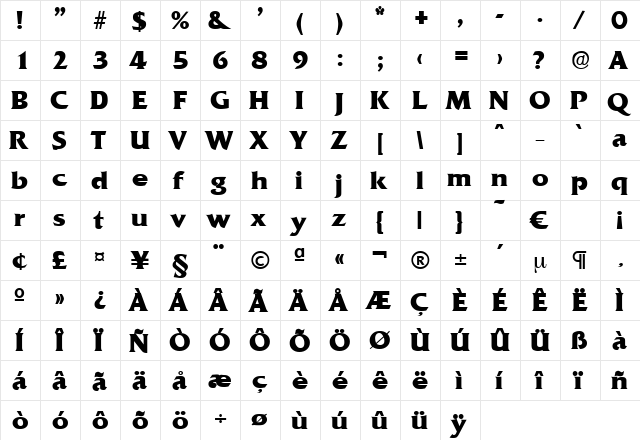
Quadrat-Bold Regular
Design Context for Quadrat-Bold Typeface
Quadrat-Bold is a composed and adaptable typeface that performs quietly and consistently across a wide range of design contexts. Its bold stroke weight gives it real presence on the page.